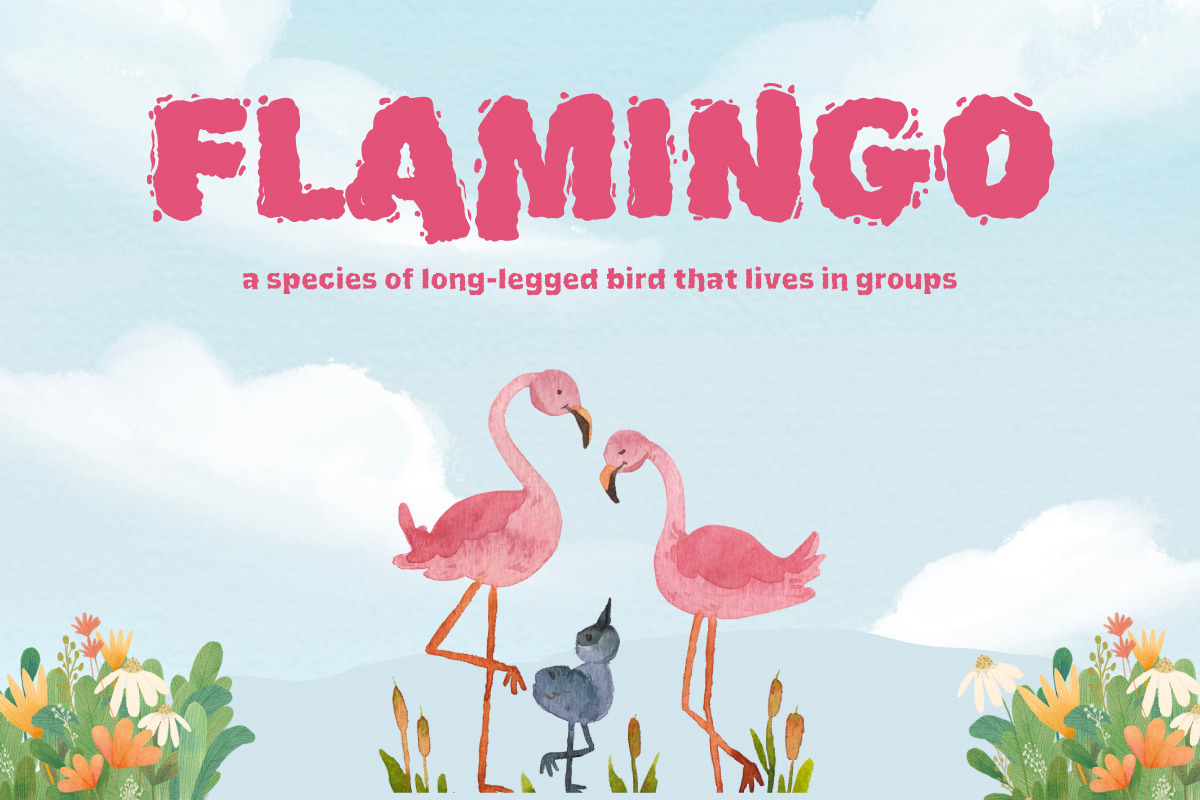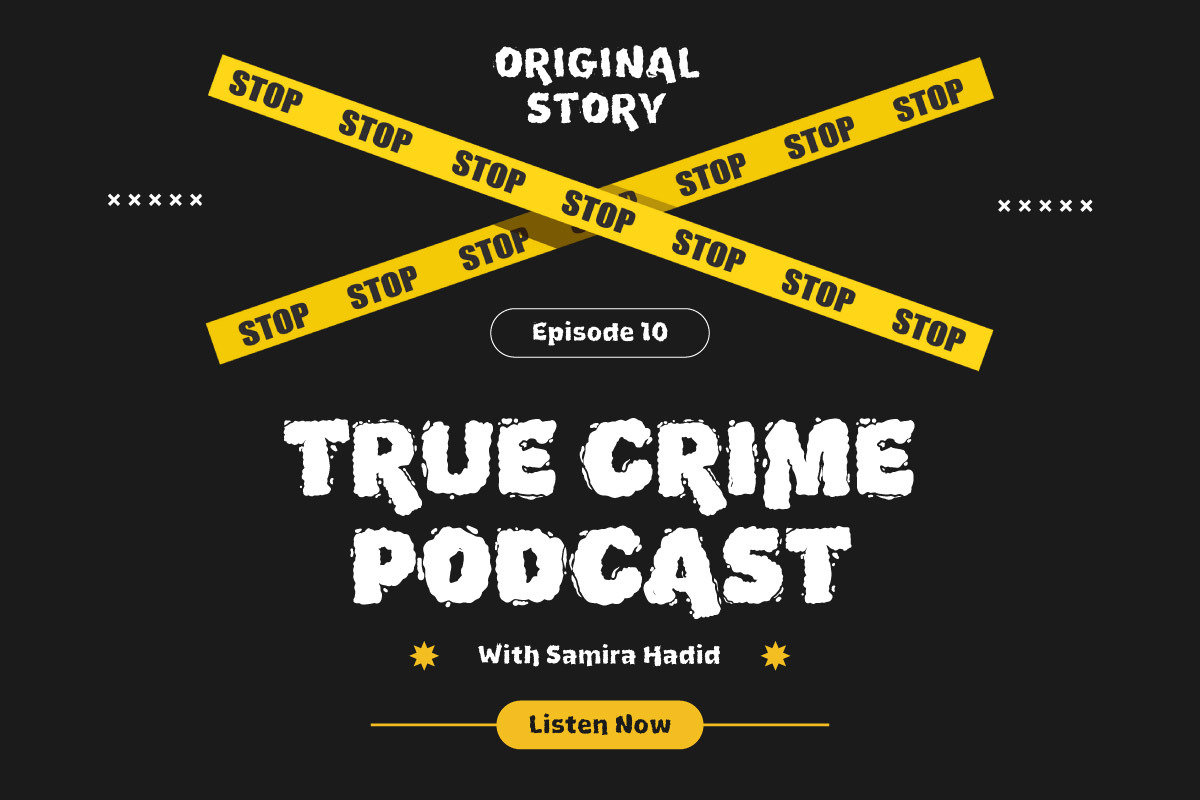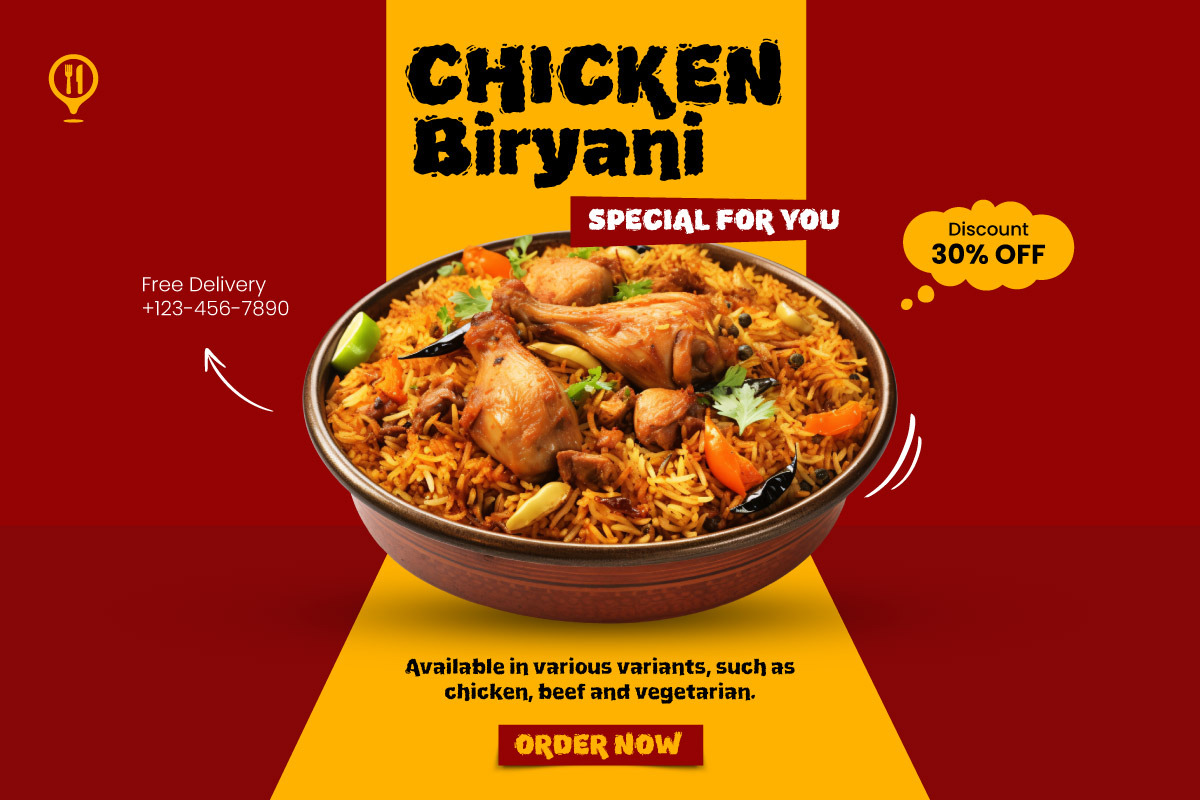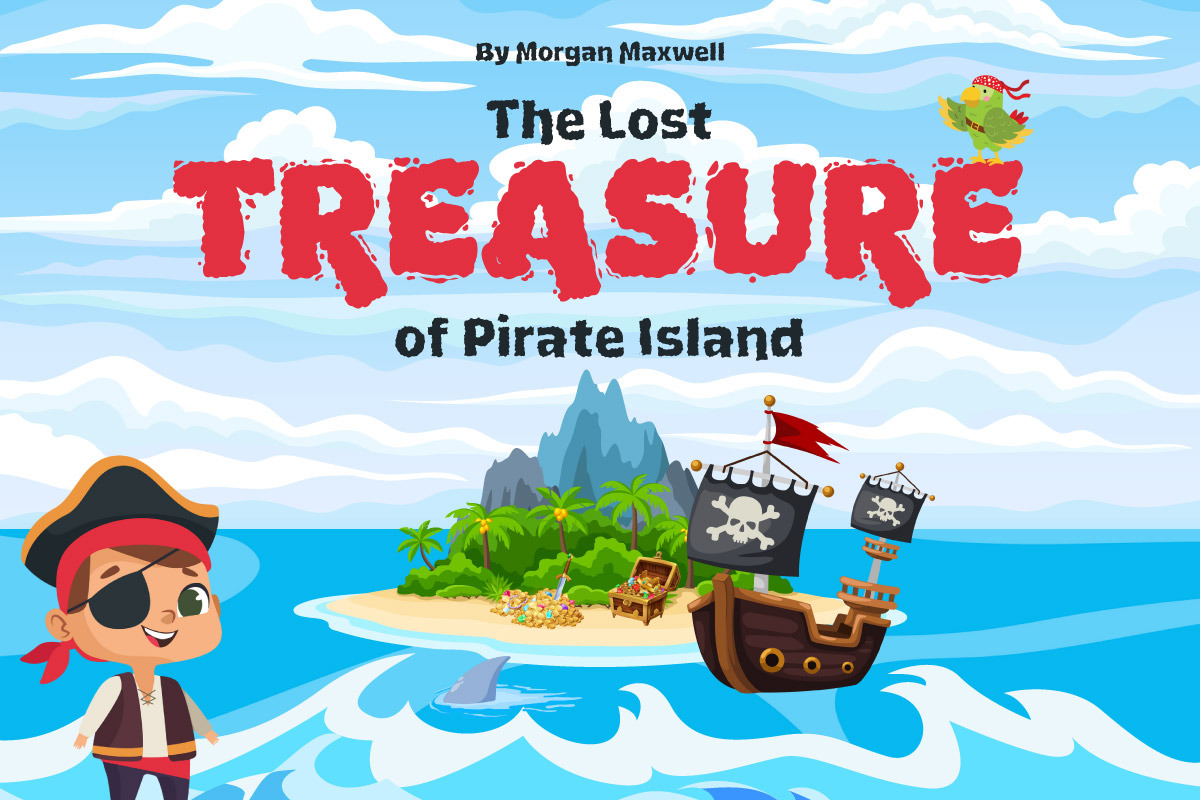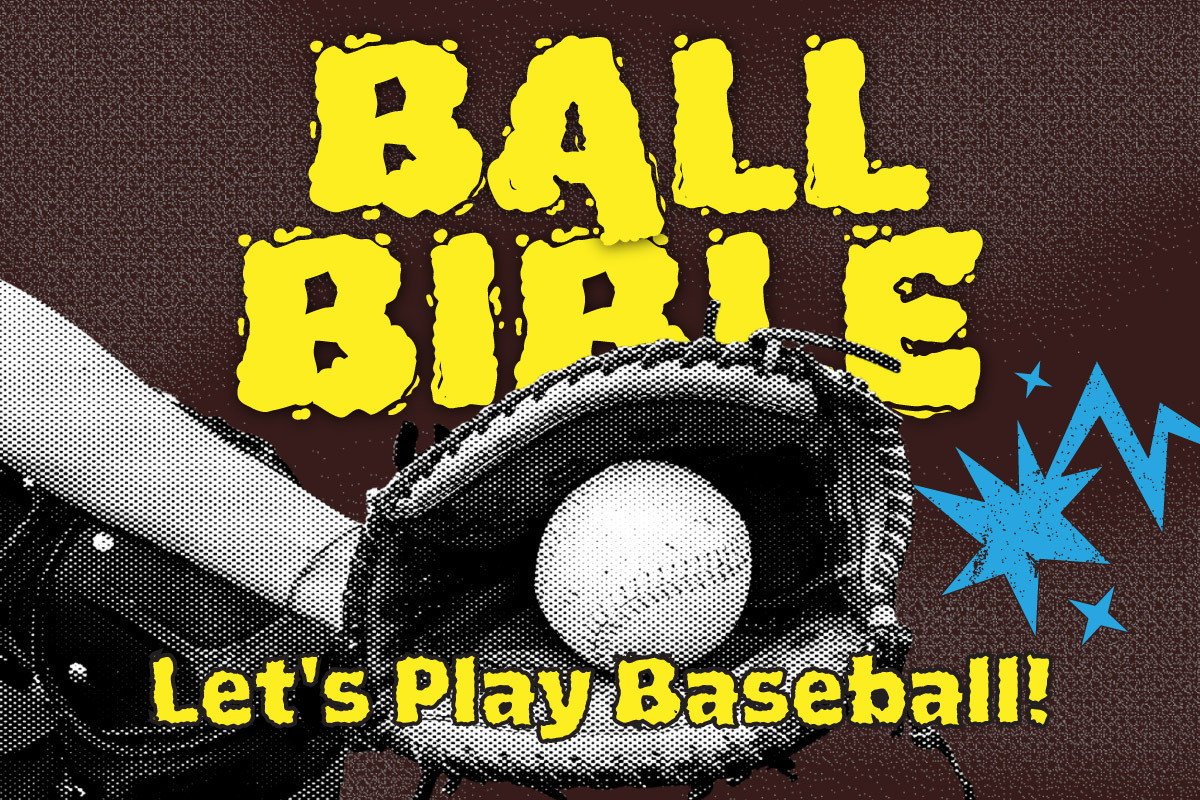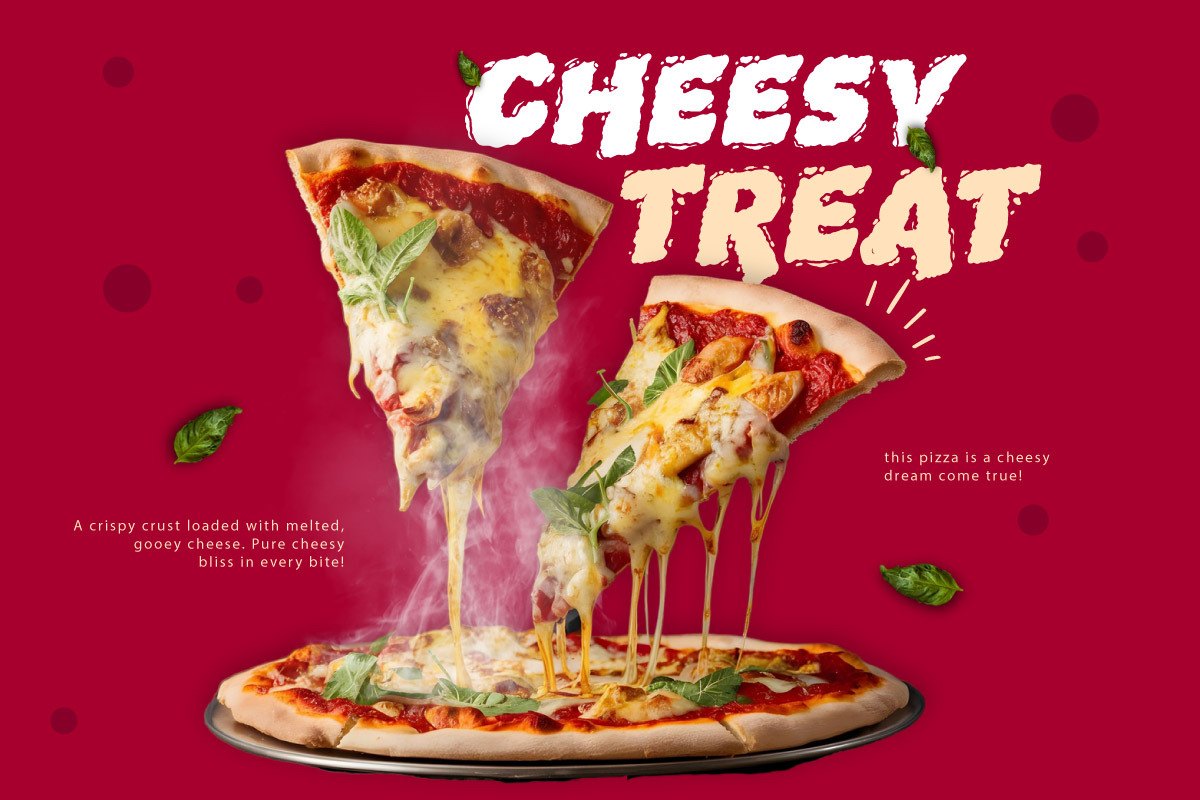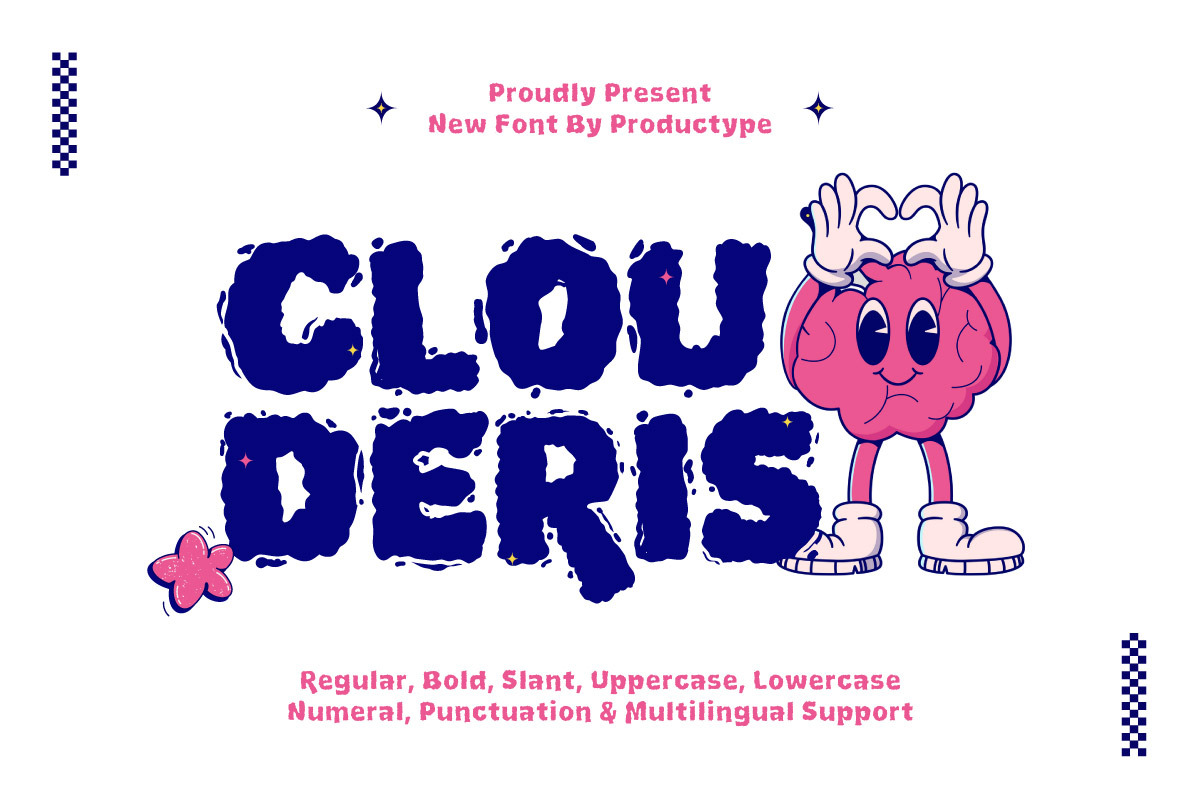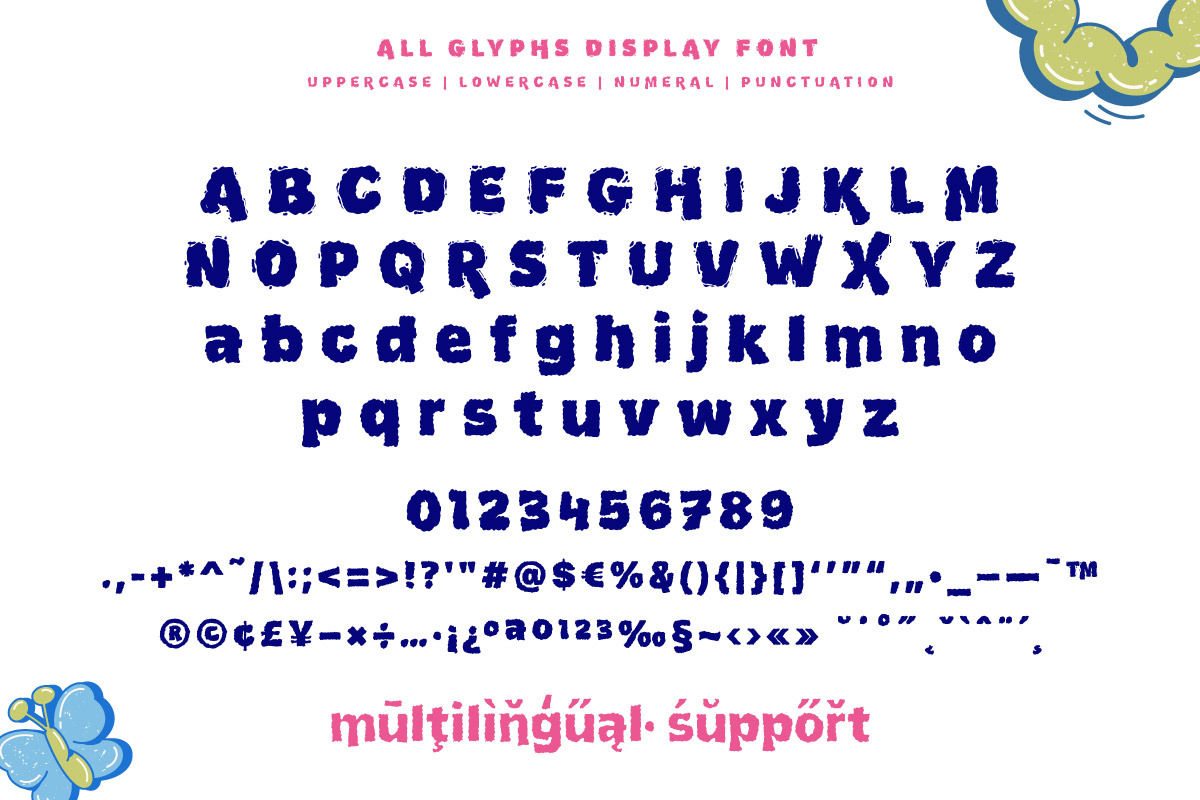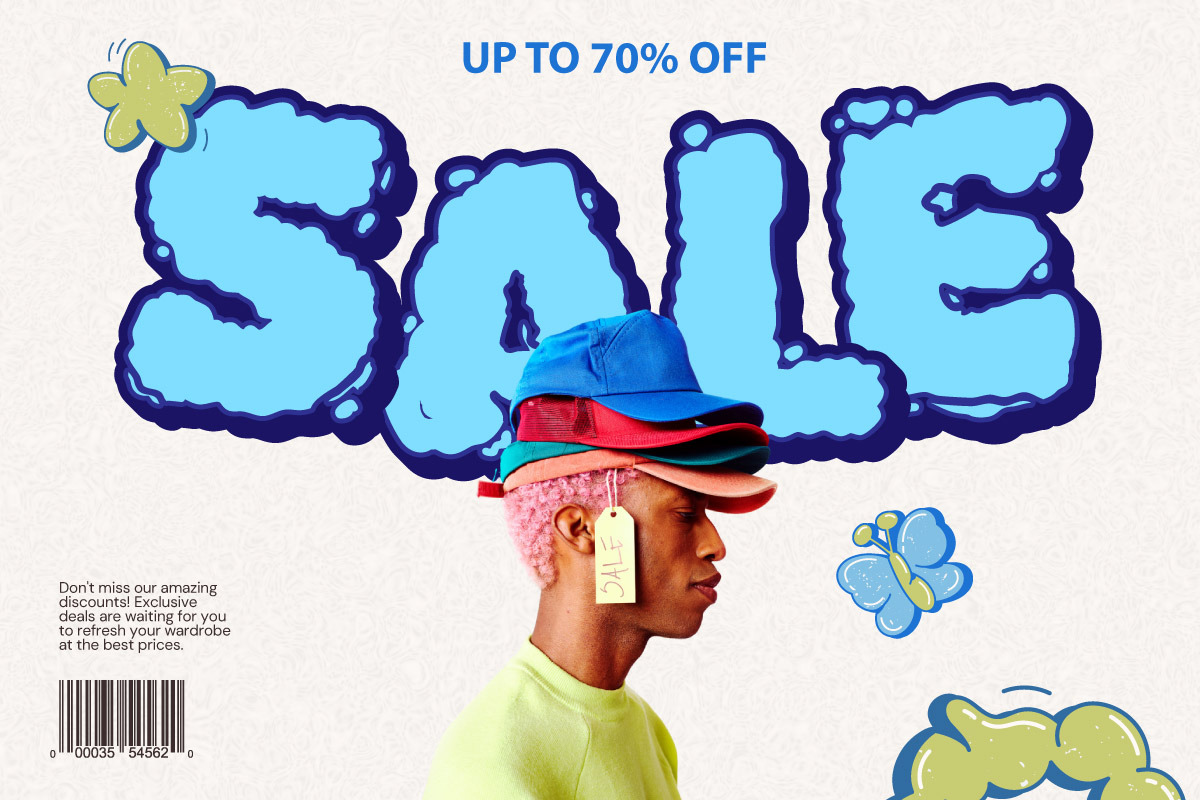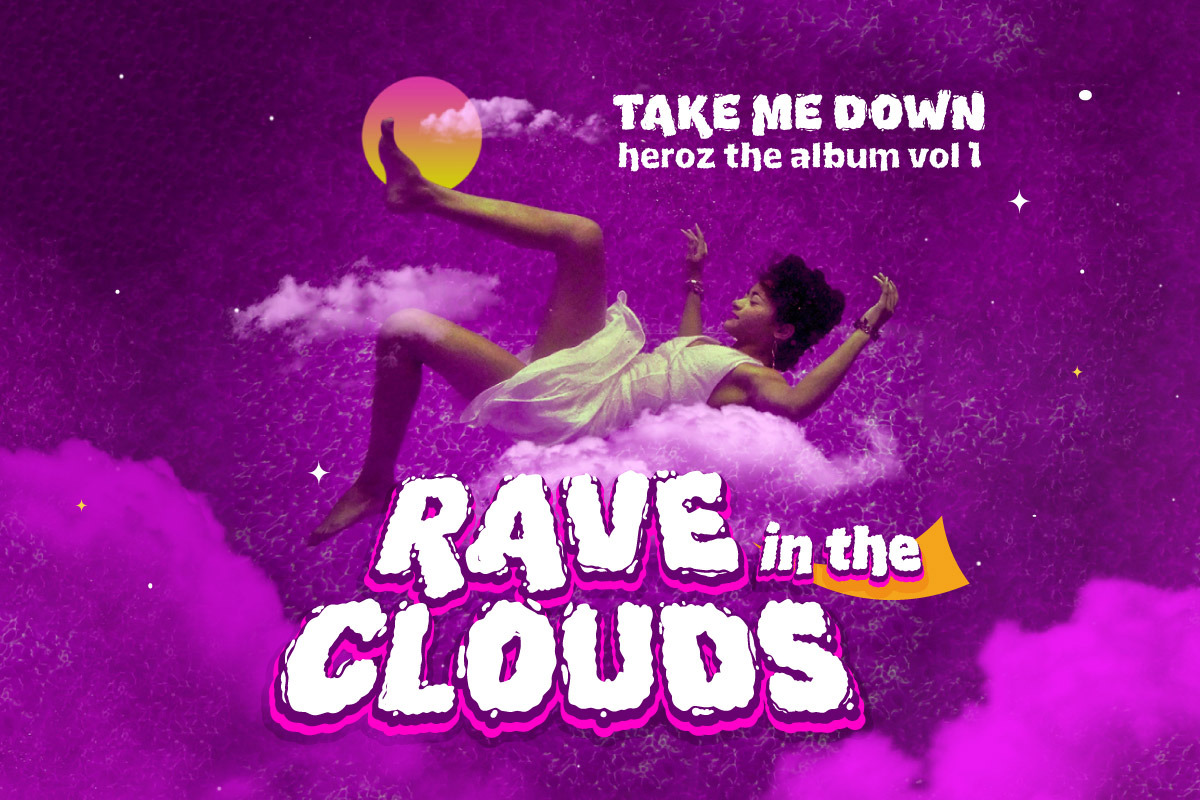
Clouderis - Bubble Font
Clouderis is a fun and bouncy bubble-style font that brings a fresh, energetic vibe to your designs. Its bold, rounded letters with a playful texture make it perfect for eye-catching headlines, branding, merchandise, and creative projects. Whether you're designing for posters, cartoons, games, or social media graphics, Cloudris adds a cheerful and friendly touch to your typography.
Features: ✔ Regular, Bold, and Slant styles ✔ Uppercase & Lowercase Letters ✔ Numerals & Punctuation
Give your projects a fun and lively personality with Clouderis – Bubble Font!